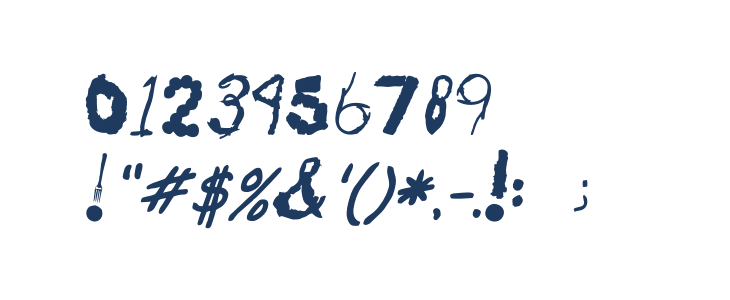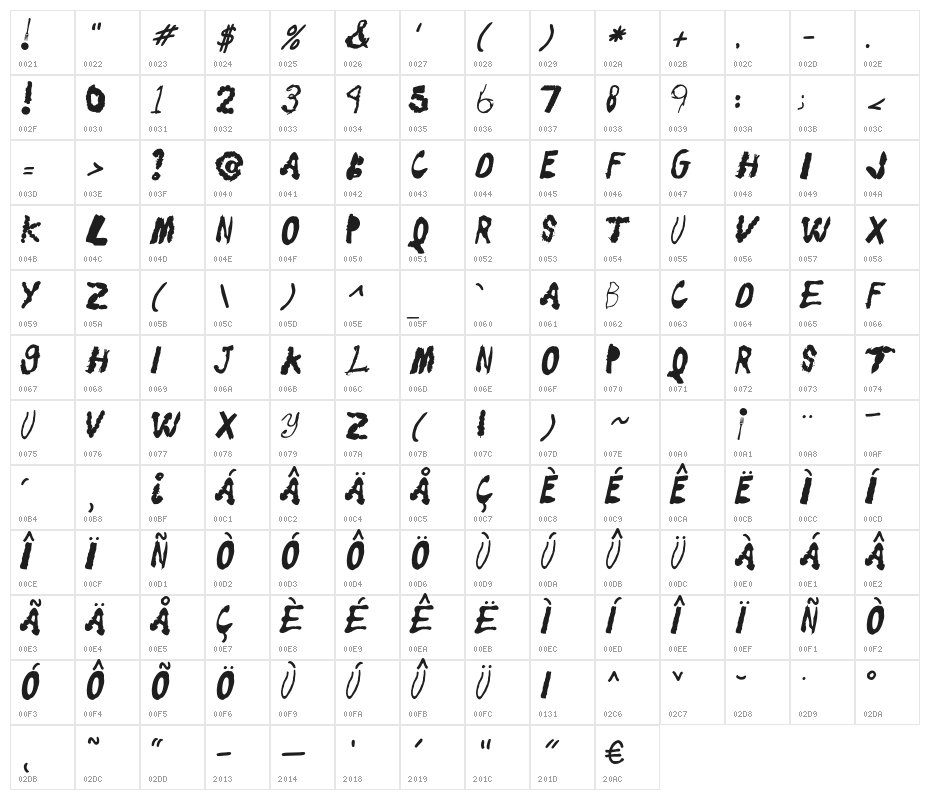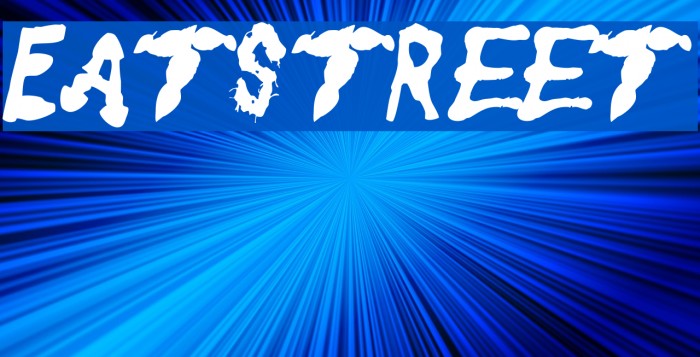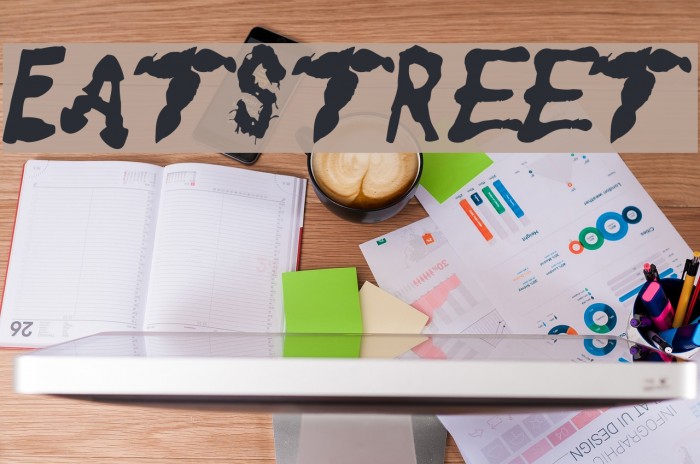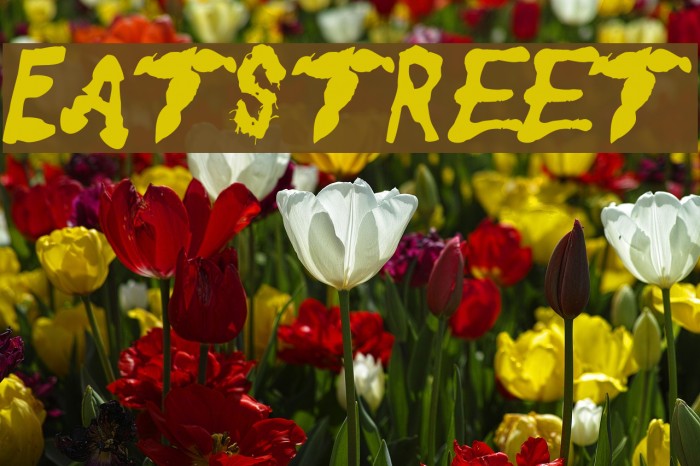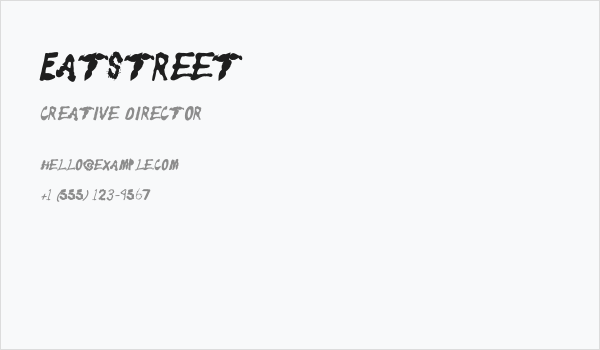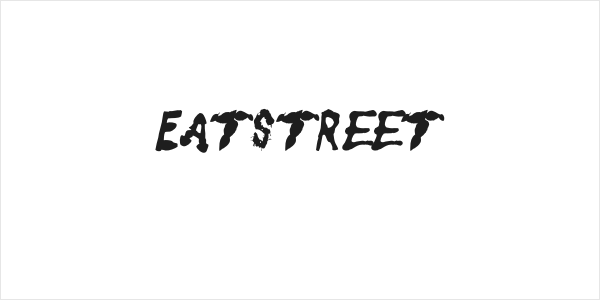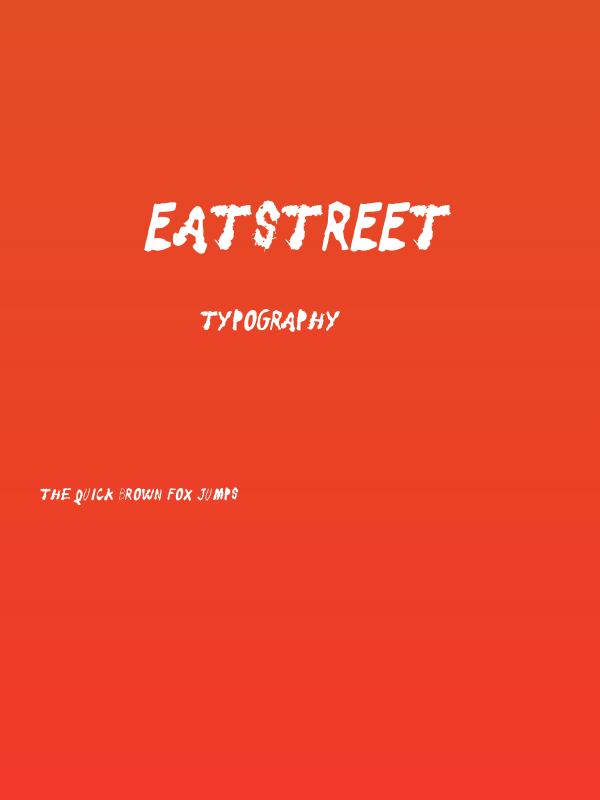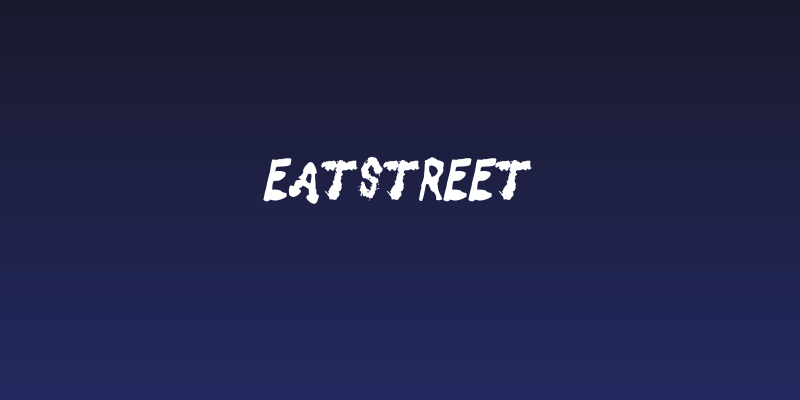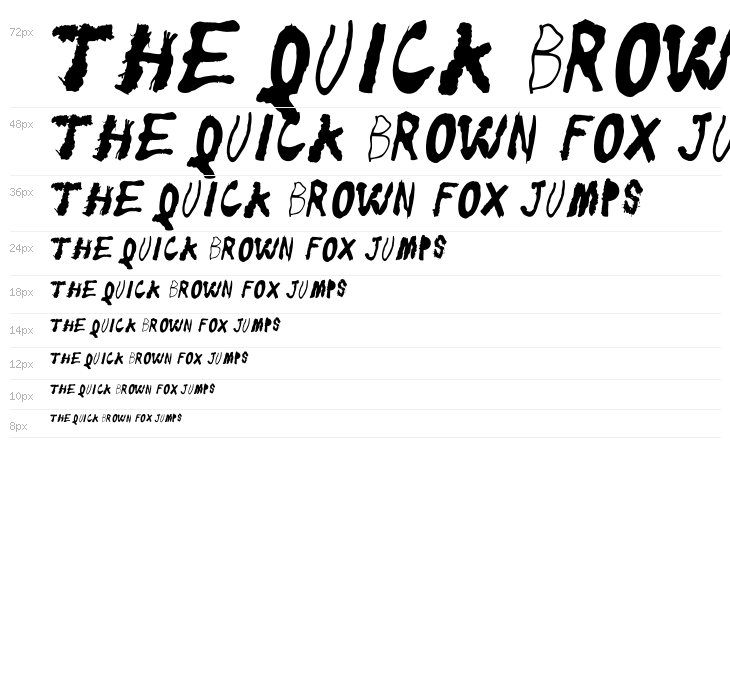
Eatstreet Font
Eatstreet Description
This font features a bold and dynamic style with a distressed, grunge-like appearance. The characters are irregular and appear as if they have been painted with a brush, giving them a raw and energetic feel. The uppercase and lowercase letters maintain a consistent aesthetic, with jagged edges and varying stroke widths that add to the chaotic yet artistic vibe. Numbers and special characters follow the same design principles, ensuring a cohesive look across all glyphs. This font is ideal for projects that require a bold statement or an edgy, urban feel.
| Overall Style | Grunge, Urban, Artistic |
| Proposed Projects | Ideal for music album covers, streetwear branding, graffiti art, and edgy poster designs. |